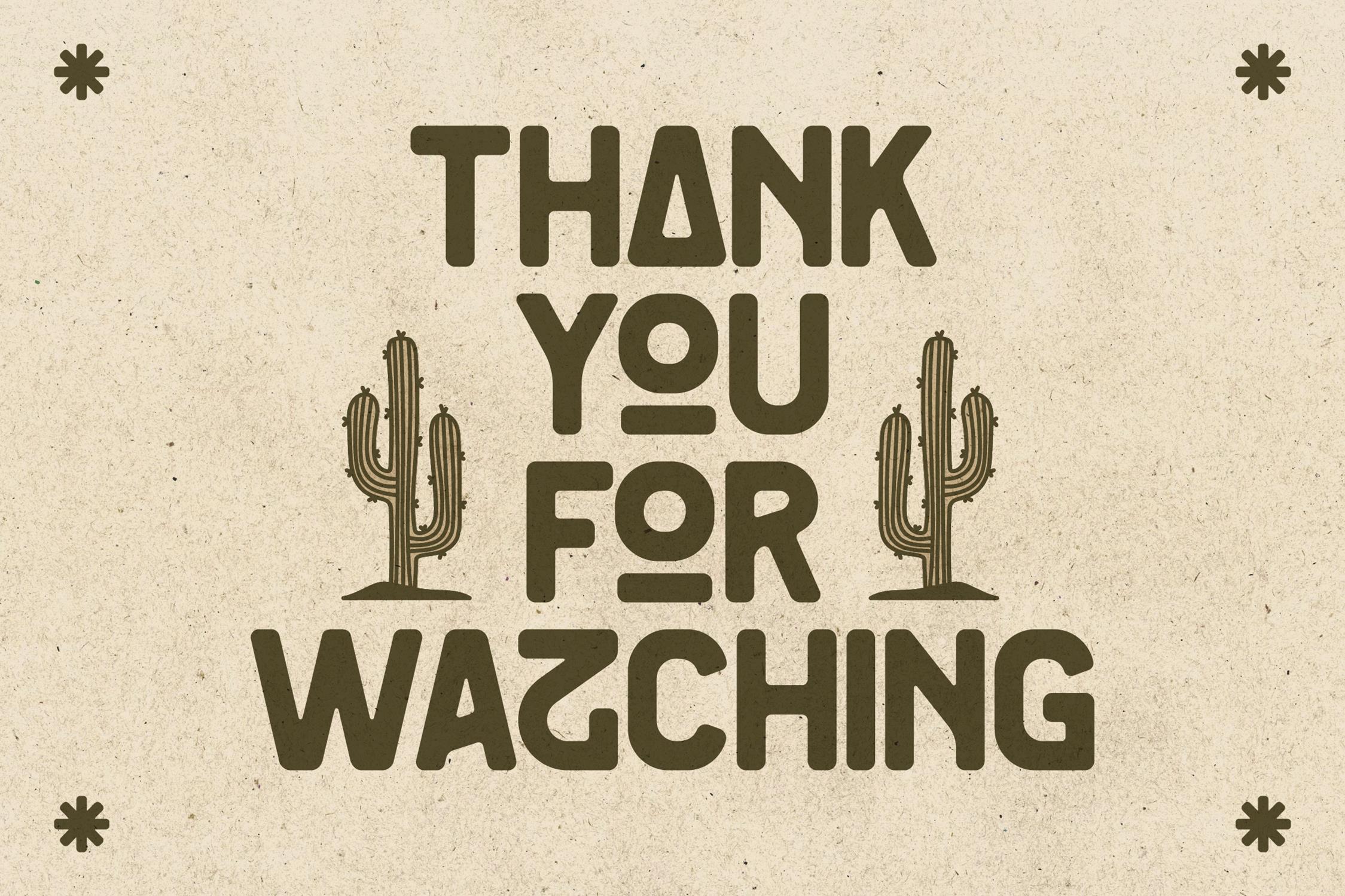
JABREGOR Font
JABREGOR Display Font
A serif modern and classic typeface that has own unique style & modern look. This typeface is perfect for an elegant & luxury logo, book or movie title design, fashion brand, magazine, clothes, lettering, quotes, and so much more.